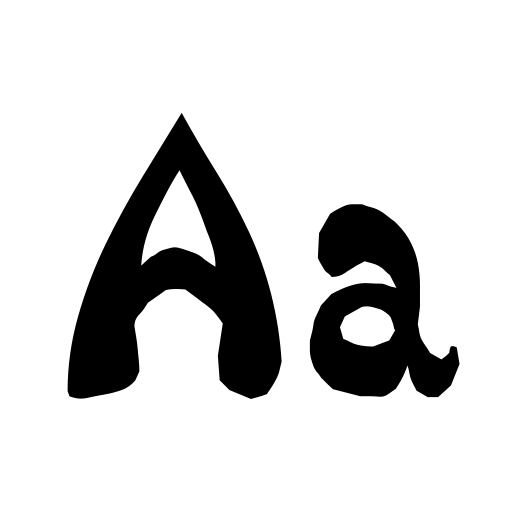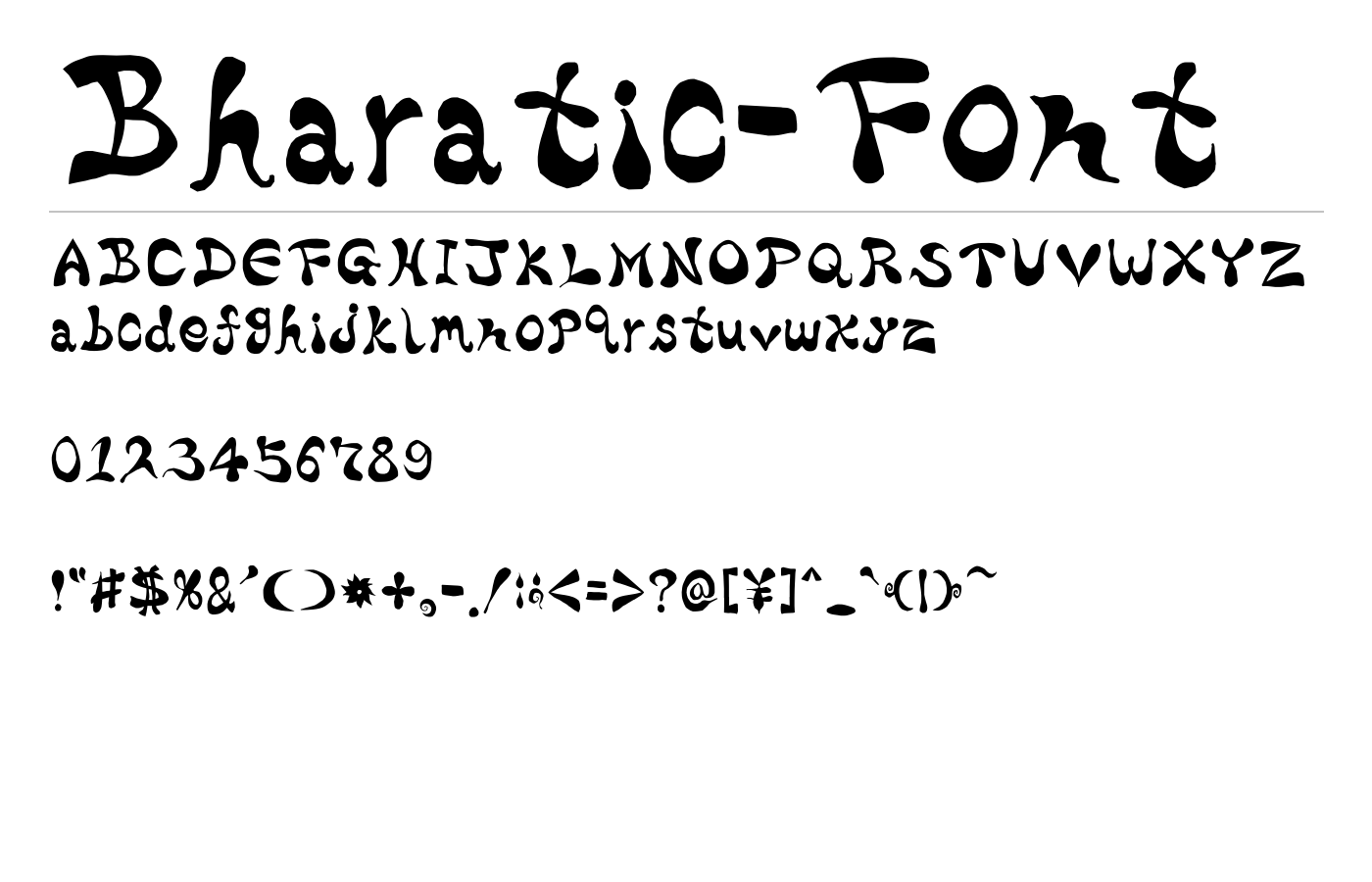
Bharatic-Font is a playful and distinctive handwritten typeface with irregular, organic shapes that give it a charming, artistic feel. Its uneven strokes and quirky letterforms make it perfect for creative projects, branding, or designs that want to convey a casual, eclectic, or cultural vibe. This font works well in headlines, logos, and posters where character and personality are key.
Bharatic-Font